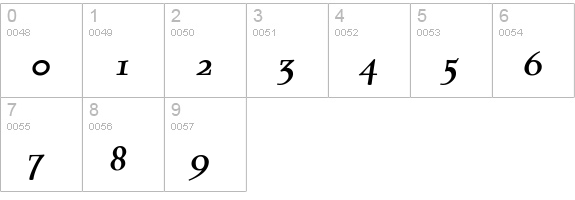
TaskBold Italic is a distinctive, italic variant in the TaskBold typeface family \xE2\x80\x94 well suited to design and typography projects.
TaskBold Italic font is a striking and modern typeface that exudes confidence and sophistication. Its bold and italic design makes it perfect for adding emphasis and style to any project. The sleek lines and unique curves of TaskBold Italic make it stand out among other fonts, giving your text a sense of elegance and flair. Best of all, TaskBold Italic is available for free download at FontsMarket.com. This means you can easily access this stunning font without any cost, making it a valuable addition to your font collection. Whether you're designing a website, creating marketing materials, or working on a personal project, TaskBold Italic is sure to make a bold statement and elevate your design to the next level. Download it today and unleash the power of this versatile and eye-catching font.